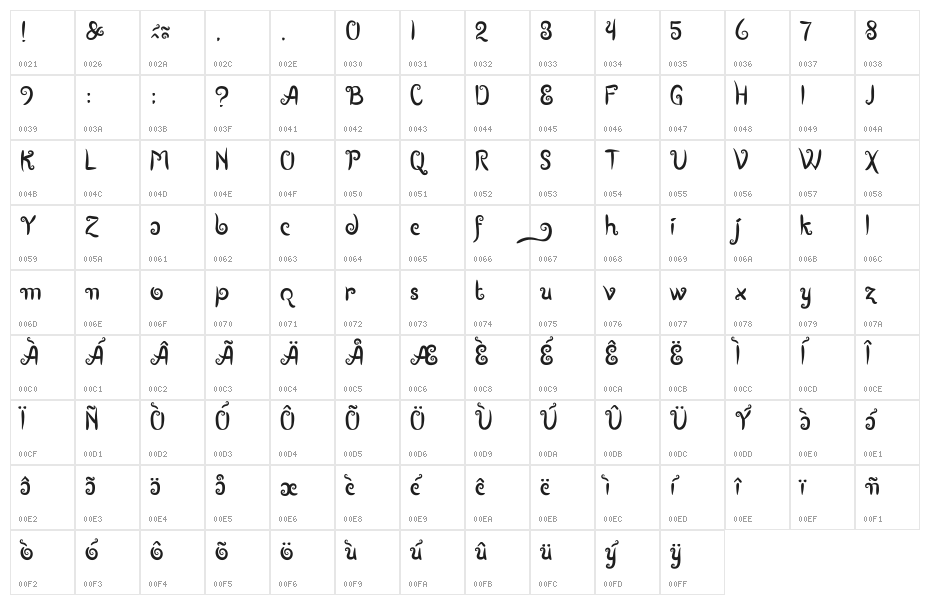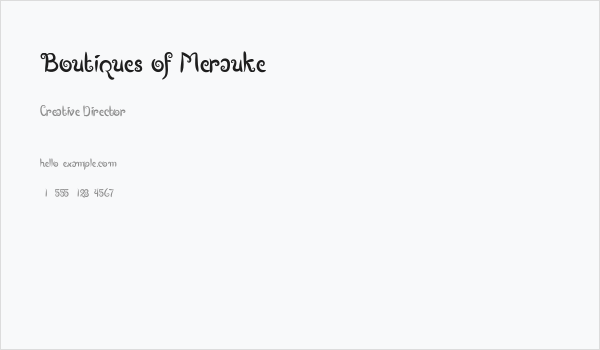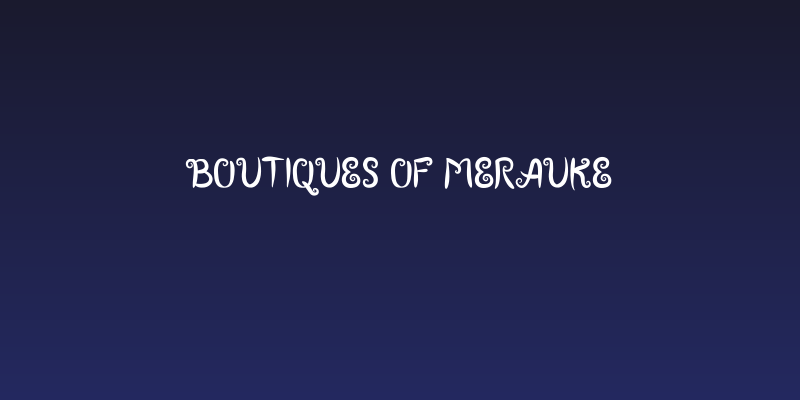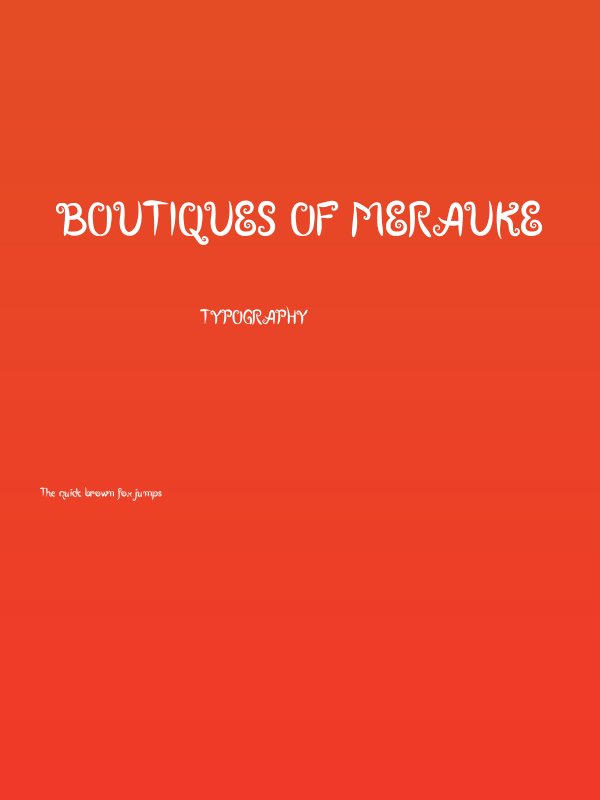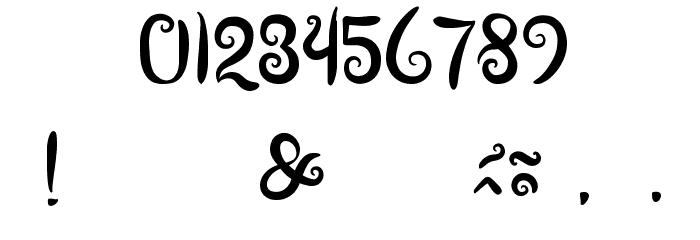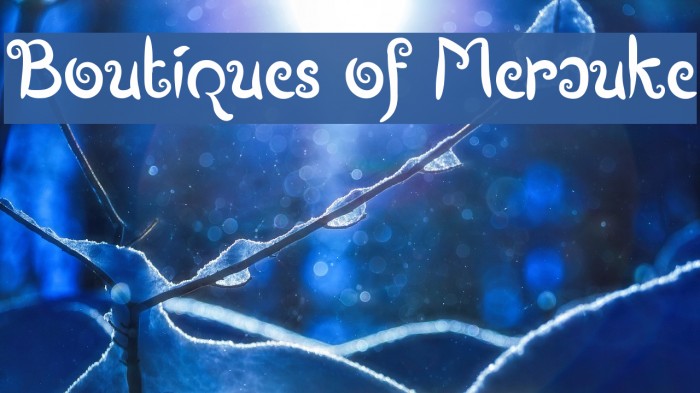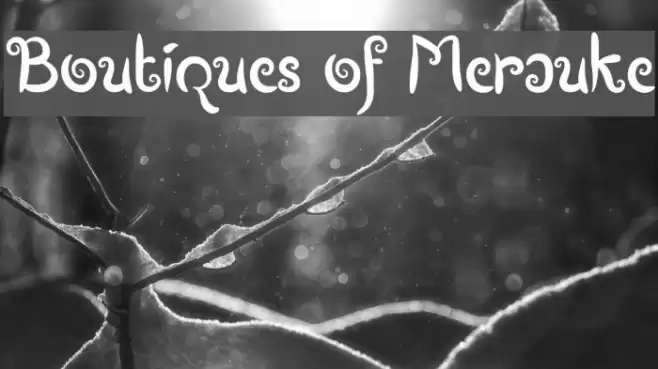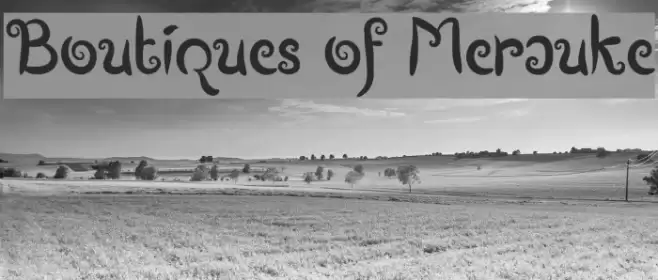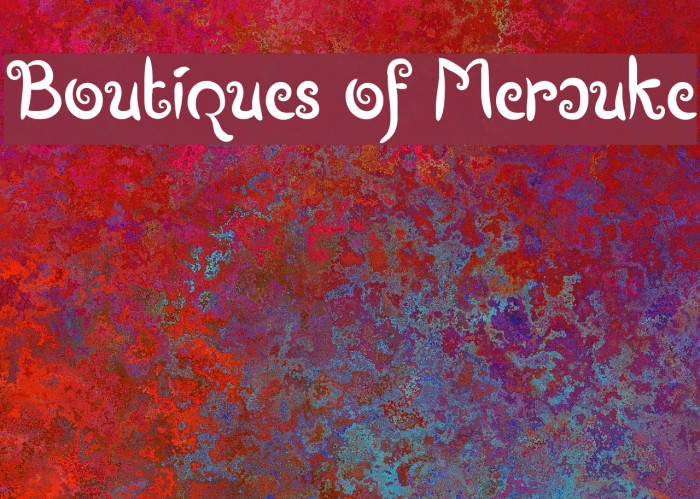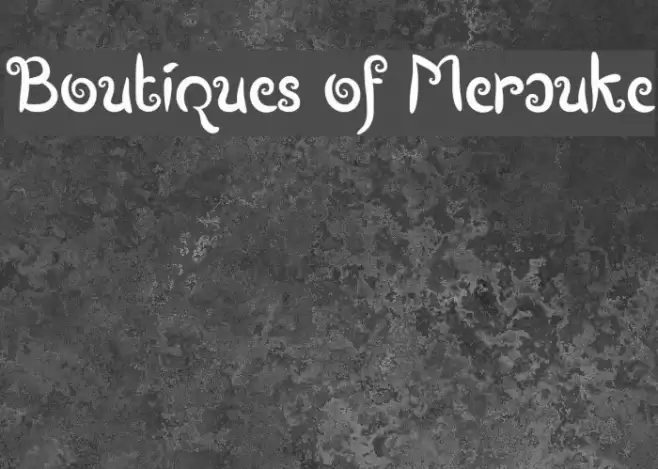
Boutiques of Merauke Font
✎ Calligraphic
Boutiques of Merauke Description
This font features a whimsical and playful design with a decorative flair. Each character is crafted with unique curls and swirls, giving it a lively and artistic appearance. The uppercase letters are bold and prominent, while the lowercase letters maintain a consistent style with slightly exaggerated curves. Numbers and special characters follow the same playful theme, making the font suitable for creative projects. The overall design is reminiscent of hand-drawn or calligraphic styles, adding a touch of elegance and fun.
| Use Case | Logos, Posters, Creative projects |
| Proposed Projects | Ideal for children's book covers, playful branding, artistic posters, and greeting cards. |